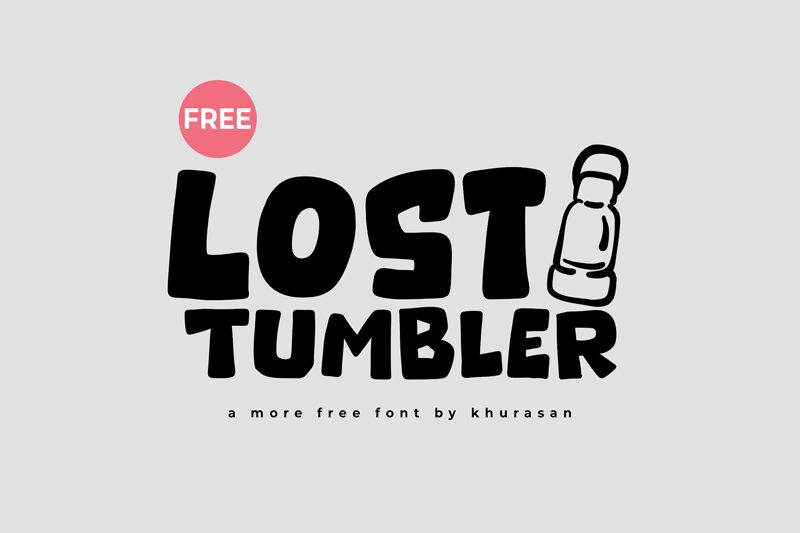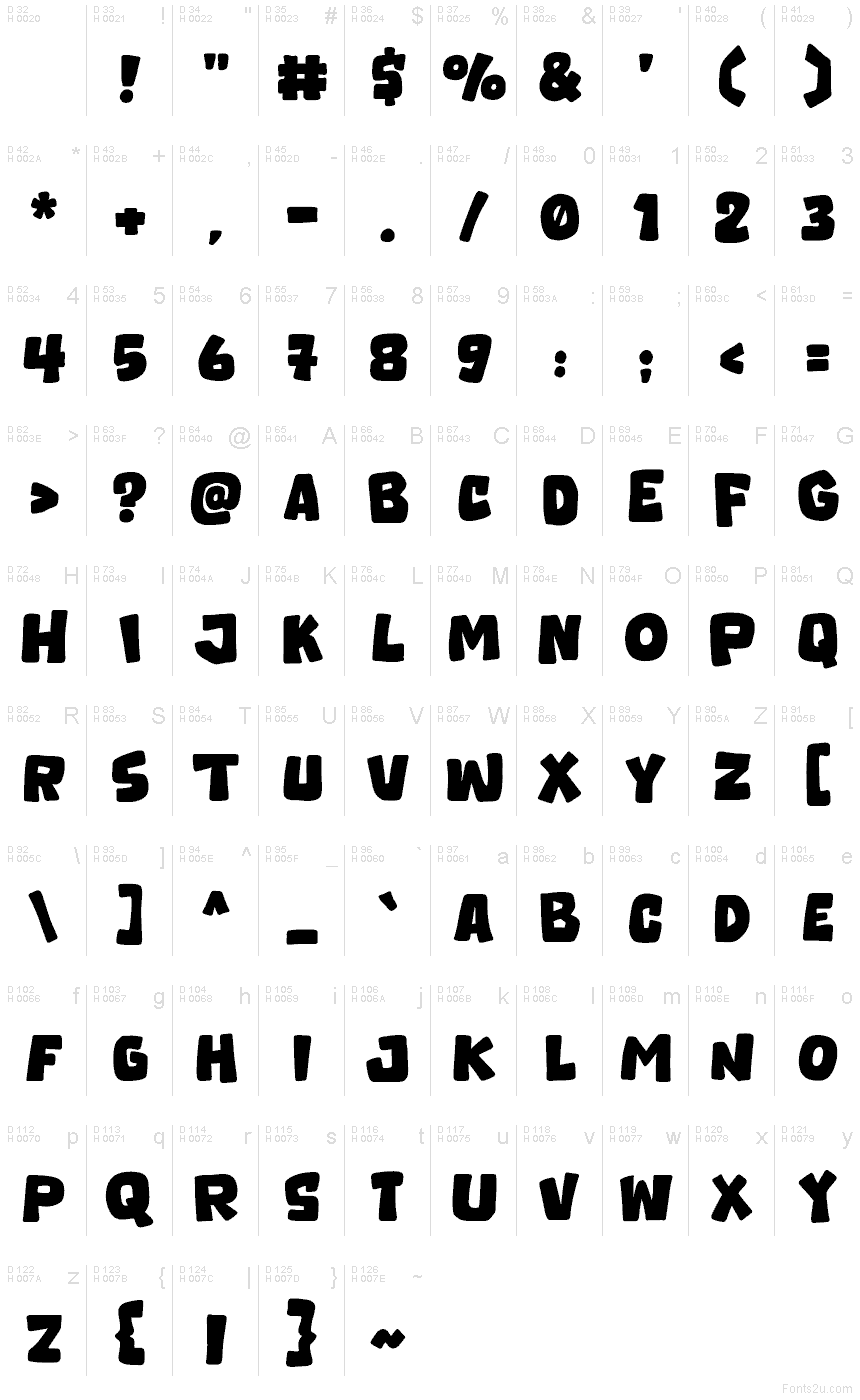
Lost Tumbler
Lost Tumbler font by Khurasan is a free cartoon display typeface with big, bouncy letters that feel like they’ve been cut from soft foam. The chunky shapes, rounded corners, and slightly uneven outlines give it a hand-drawn, Saturday-morning energy that jumps off the page. It’s loud, friendly, and easy to read even at a distance, so your message feels fun instead of shouty.
Using Lost Tumbler, you can bring instant playfulness to kids’ book covers, game logos, birthday invitations, school posters, snack packaging, and YouTube or streaming thumbnails. This free font shines when you crank it up large and keep supporting text simple; pair it with a clean, light sans serif to keep things readable while Lost Tumbler does the heavy lifting in your headlines.